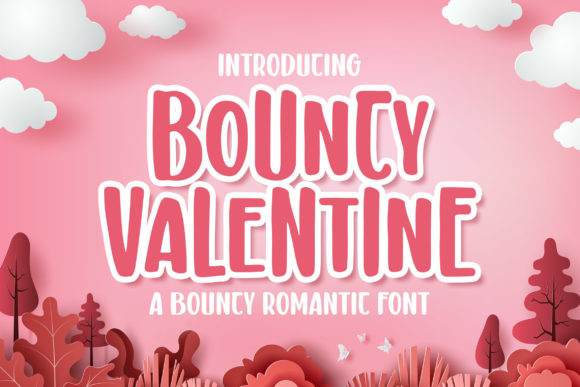
Nestled amidst our curated collection of fonts, Bouncy Valentine emerges as a captivating display font, enchanting you with its boundless charm and romantic essence. Its whimsical strokes and playful curves evoke a symphony of emotions, beckoning you to craft designs that sizzle with creativity and imagination.
Unleash your artistic vision with Bouncy Valentine, the perfect font for Valentine's Day projects, book covers that ignite passion, and posters that whisper sweet nothings. Let your imagination run wild as you create packaging that sparks joy, merchandise that exudes love, and logos that leave an everlasting impression.
With Bouncy Valentine, you'll embark on an artistic journey where elegance and charm dance hand in hand. Its intricate details and graceful lines are a testament to the beauty of typography, transforming your designs into true masterpieces. Experience the magic of Bouncy Valentine and let your creativity soar to new heights.